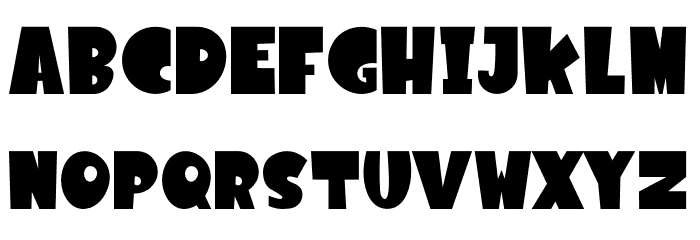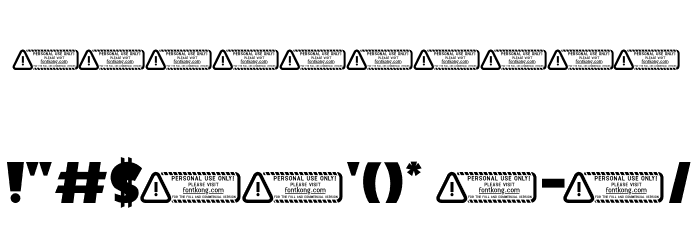
Cartoon PERSONAL USE ONLY Font
This font features bold, playful characters with a cartoonish flair, making it ideal for projects that require a fun and lively aesthetic. The letters are thick and rounded, with exaggerated curves and angles that add a sense of movement and energy. The uppercase and lowercase letters maintain a consistent style, ensuring readability while still being visually engaging. The numbers and special characters follow the same design principles, providing a cohesive look across all elements. This font is perfect for creating eye-catching headlines, posters, and children's book covers.
A bold, playful font with a cartoonish style, perfect for fun and lively designs.
- Proposed Projects: Ideal for children's books, playful posters, comic strips, and branding for fun-oriented products.
- Overall Style: Playful, Cartoonish
- Use Case: Headlines, Posters, Children's books